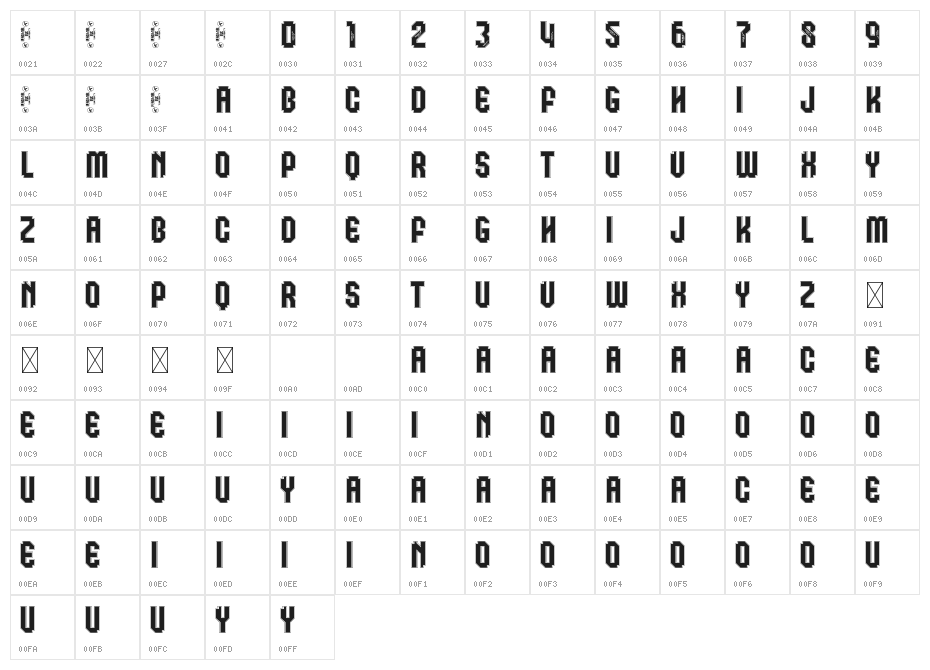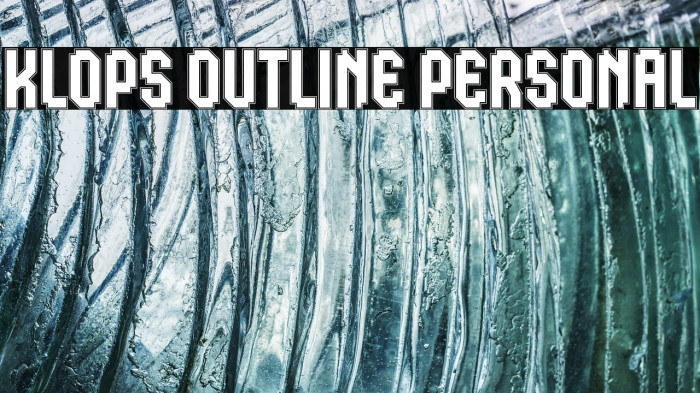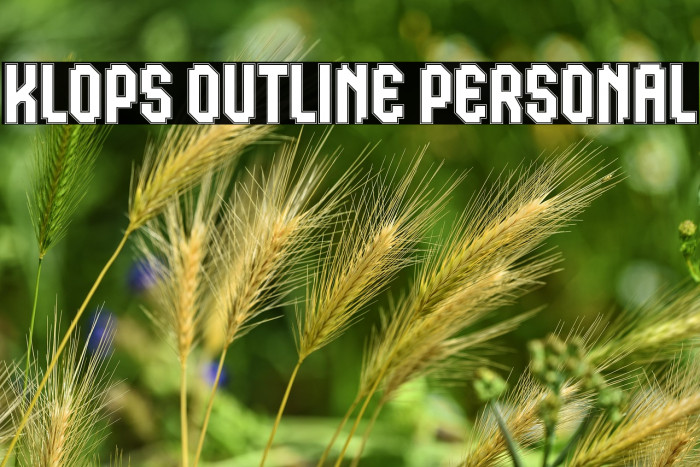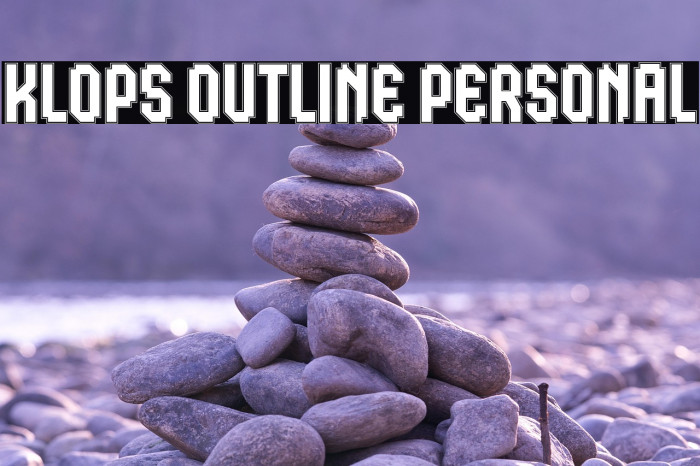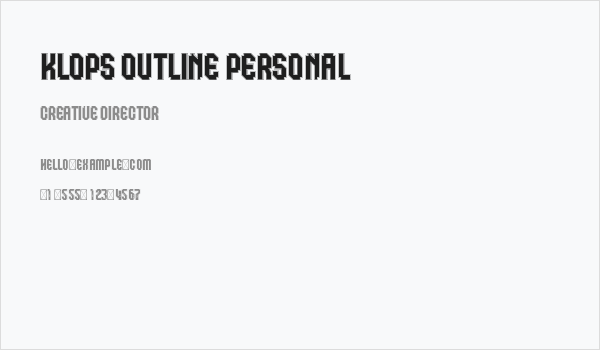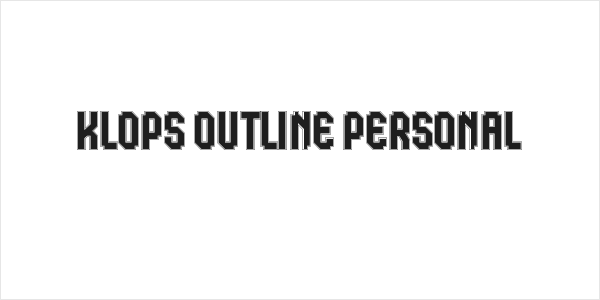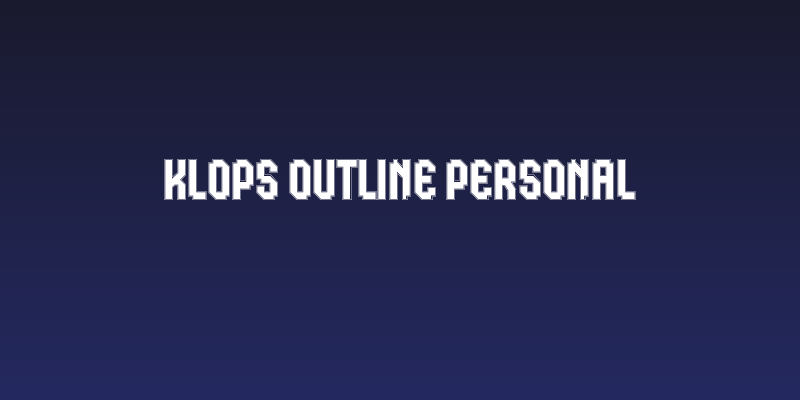
Klops Outline Personal Font
Klops Outline Personal Description
This font features a bold, geometric design with a distinct outline style. The characters are blocky and angular, giving them a strong, impactful presence. The uppercase and lowercase letters maintain a consistent height, creating a uniform appearance. The numbers and special characters follow the same bold, outlined aesthetic, ensuring cohesion across all elements. The font's design is reminiscent of retro or vintage styles, yet it maintains a modern edge due to its clean lines and structured form.
| Overall Style | Modern, Vintage |
| Proposed Projects | Ideal for posters, logos, and branding projects that require a strong, eye-catching typeface. |